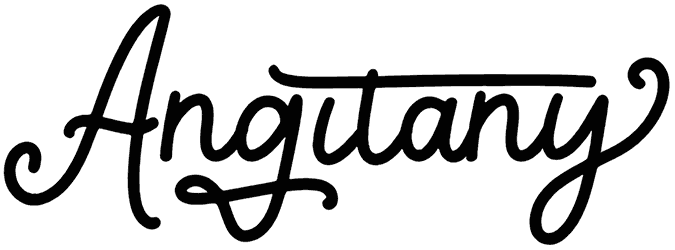
Angitany Font
Based on harmonious lines and soft circular shapes, Angitany will be the center of attention in your artwork. This handwritten font is so unique and attractive that once you use it and see how it affects your audience, you will make it an integral part of your future designs.
Working with this swirly font is very easy, even without numbers, and you can implement your mental ideas in poster formats, children’s packaging, and animations with playful aesthetics.